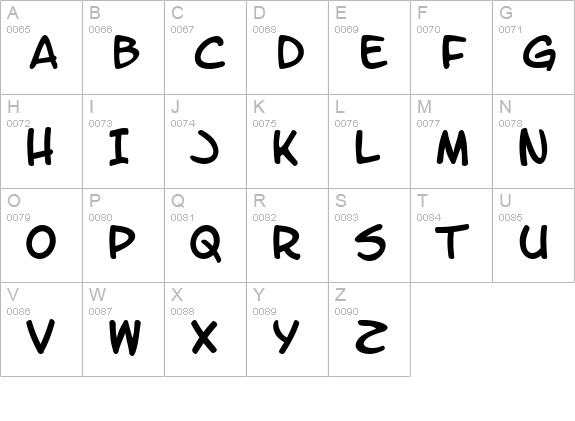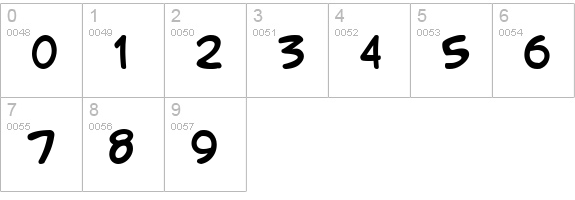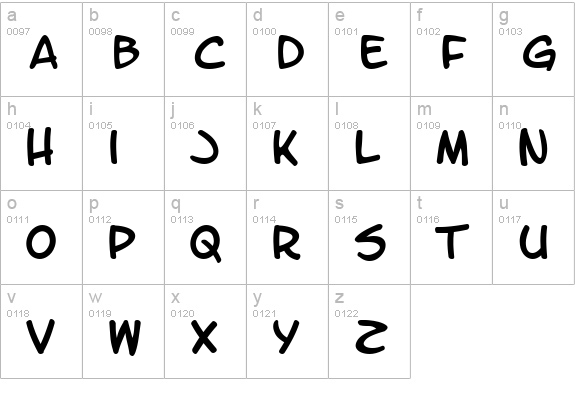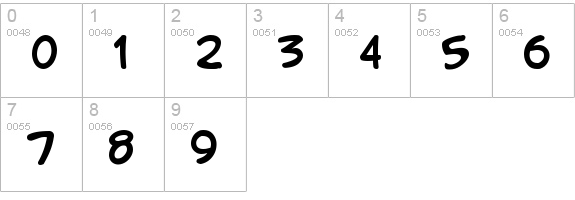
LetterOMatic! Font Details
Introducing LetterOMatic!, a captivating and versatile font that will add a touch of elegance to any design project. With its stylish and unique letterforms, this font is sure to make a lasting impression. LetterOMatic! is the perfect choice for a wide range of applications, from branding and logo design to invitations and packaging. Its clean lines and balanced proportions make it easy to read, ensuring that your message is conveyed with clarity and sophistication. But that's not all - the best part about LetterOMatic! is that it is completely free! Yes, you read that right. This incredible font is freely available to download at FontsMarket.com, allowing you to enhance your creative projects without breaking the bank. The creators of LetterOMatic! understand the importance of accessibility and affordability, which is why they have made this font available to everyone at no cost. Whether you're a professional designer or a hobbyist, you can now enjoy the benefits of this exceptional font without any financial constraints. So why wait? Elevate your designs with the timeless beauty of LetterOMatic!. Download it for free today at FontsMarket.com and let your creativity soar. With this font in your toolkit, the possibilities are endless.